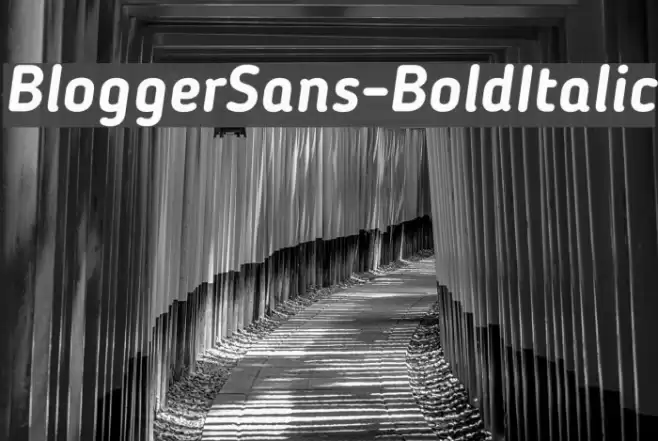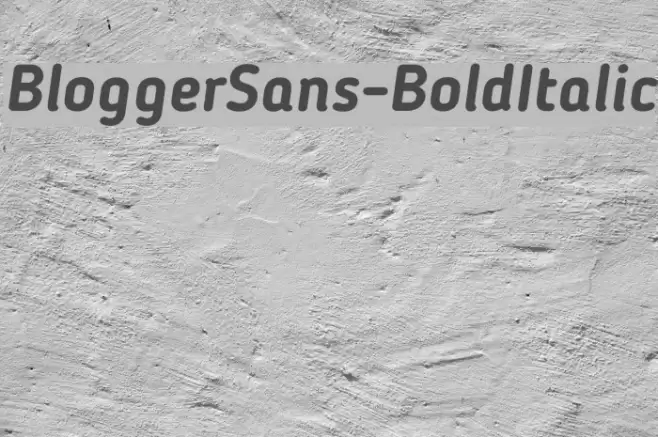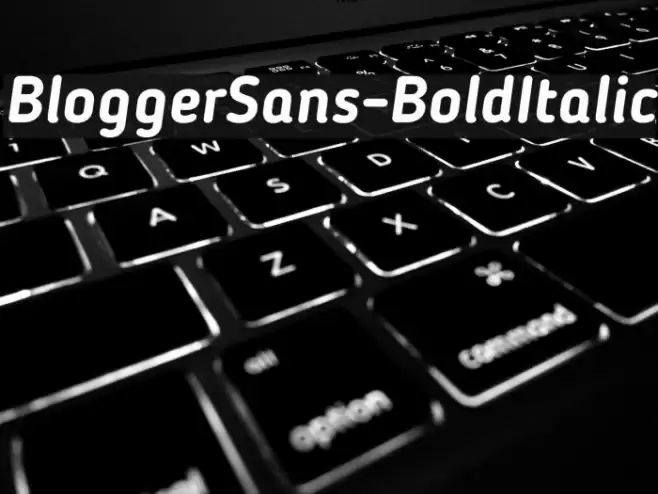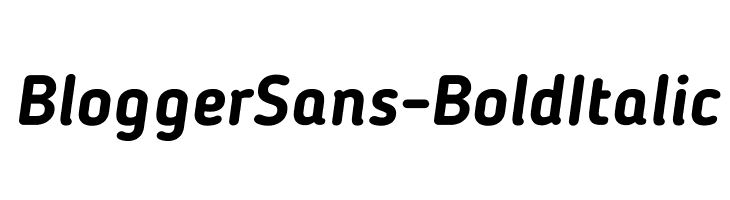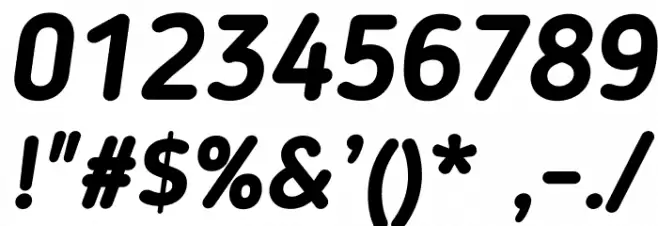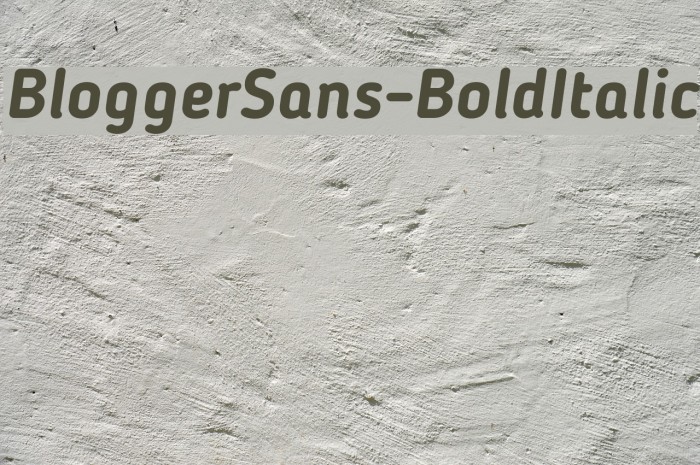
BloggerSans-BoldItalic
This font features a bold and italic style, characterized by its smooth, rounded edges and modern sans-serif design. The letters are slightly slanted, giving a dynamic and forward-moving appearance. The strokes are consistent in thickness, providing a uniform look across all characters. The font maintains a clean and approachable aesthetic, making it versatile for various applications. Its readability is enhanced by the generous spacing between characters, ensuring clarity even at smaller sizes. The numerals and special characters are designed to match the overall style, maintaining the same bold and italicized characteristics.
A bold, italic sans-serif font with smooth, rounded edges and a modern look.
- Proposed Projects: Ideal for branding, advertising, and digital media projects where a modern and approachable style is desired.
- Use Case: Headlines, Logos, Digital Media